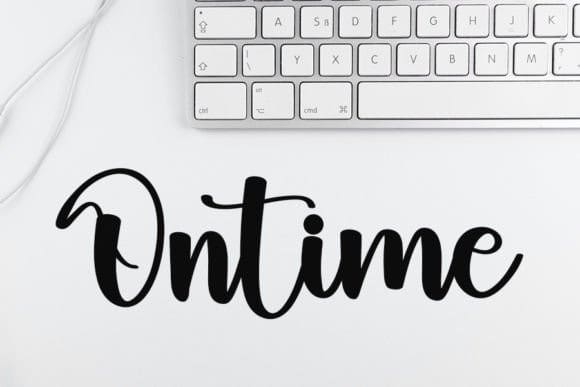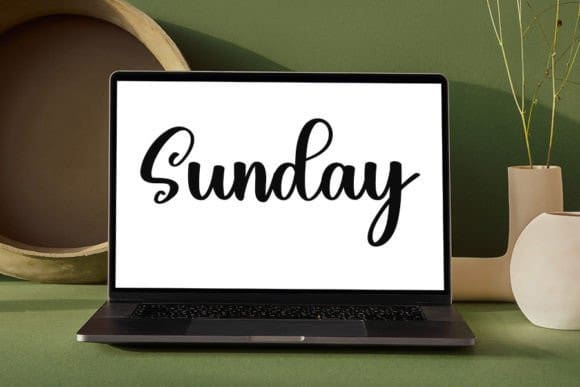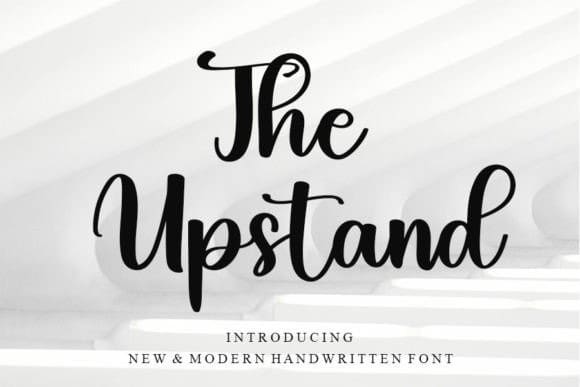
The Upstand Font
The Upstand Font is a script font designed for your business needs. It’s perfectly suitable for making flyers, wedding invitation cards, logos, banners, birthday cards, social media posts, and thumbnails.